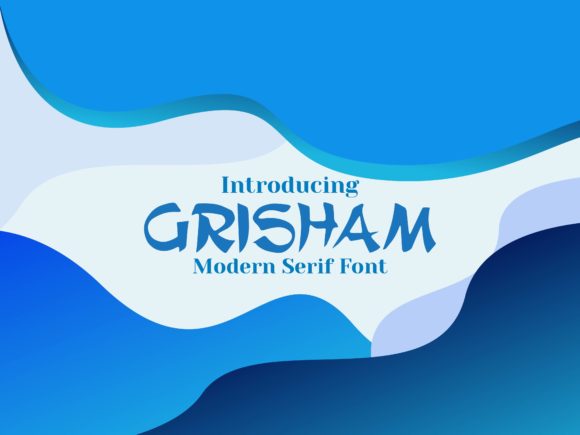
Welcome to the world of typography, where letters dance and words take flight. Allow us to introduce you to the Grisham Font, a display font that will captivate your senses and add a touch of vintage charm to your designs.
Visualize your logo, posters, flyers, or prints adorned with Grisham's elegant and playful characters. Its carefully crafted curves and unique letterforms will make your designs stand out from the crowd. Picture your audience's eyes drawn to the captivating headlines, pulled in by the allure of this timeless font.
With Grisham, you have a font that speaks volumes. Its vintage-inspired style evokes a sense of nostalgia and authenticity, transporting you back to an era of timeless beauty. Create designs that exude a classic charm, capturing the essence of bygone days.
Unleash your creativity and explore the endless possibilities that Grisham offers. Let your imagination soar as you craft designs that resonate with your audience. Whether you're a seasoned designer or just starting, Grisham is the perfect font to add a touch of sophistication and elegance to your work.
Don't settle for ordinary fonts that blend into the background. Embrace the power of Grisham and make a statement. Let your designs shine with the vintage charm and timeless beauty that only this font can bring.